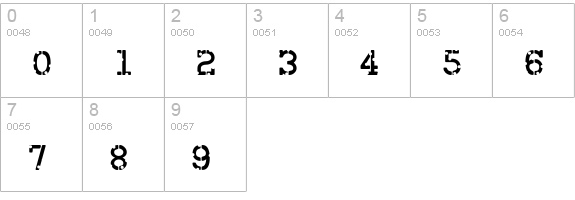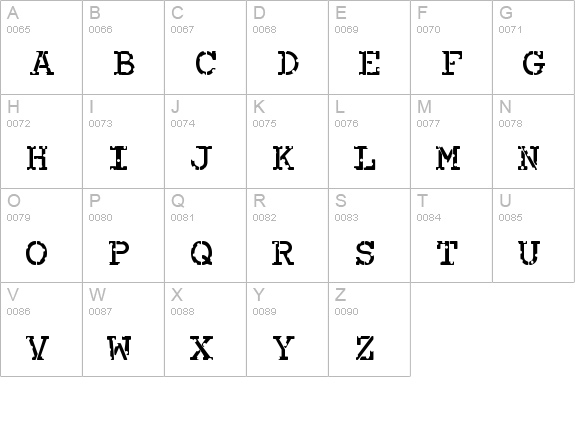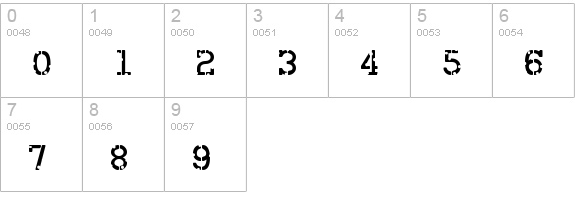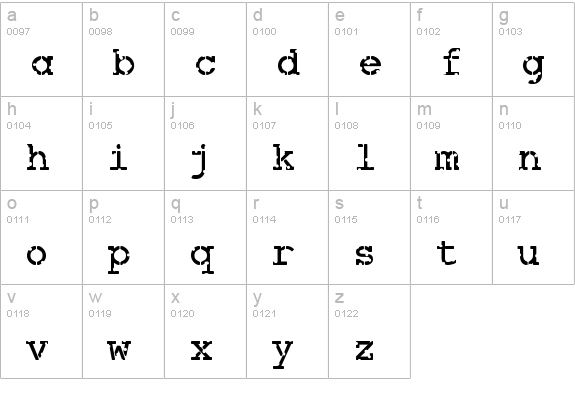
Combat Tested BTN Font Details
Combat Tested BTN font is a bold and rugged typeface that exudes strength and power. Its sharp edges and military-inspired design make it perfect for conveying a sense of toughness and resilience in any project. This versatile font is ideal for creating impactful headlines, logos, posters, and more. The Combat Tested BTN font is not only visually striking but also highly legible, making it a practical choice for a wide range of design applications. Whether you're working on a project for a military-themed event, a sports team, or a high-energy brand, this font will help you make a bold statement. Best of all, Combat Tested BTN font is available for free download at FontsMarket.com. Take advantage of this offer and add this powerful typeface to your design arsenal today. With Combat Tested BTN font, you can command attention and leave a lasting impression on your audience.